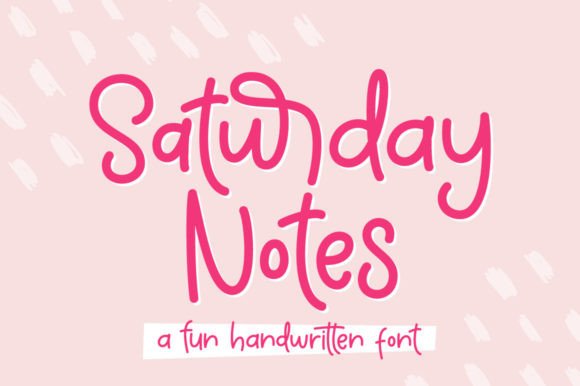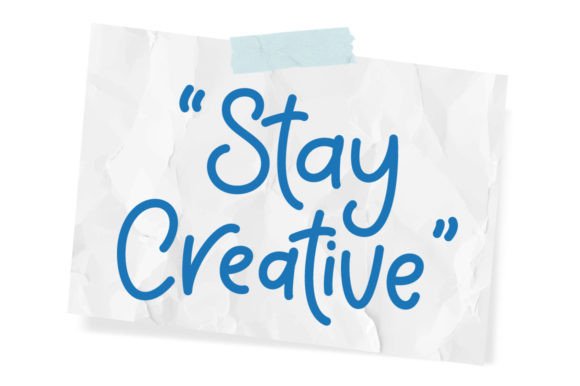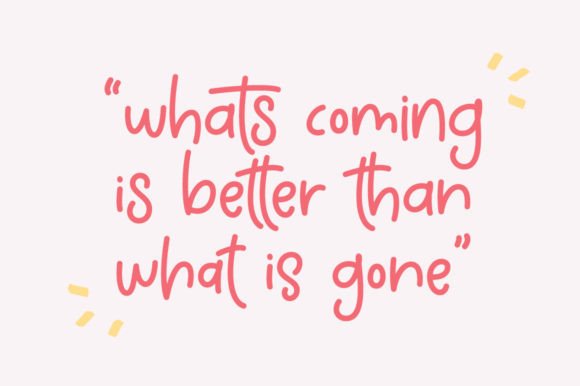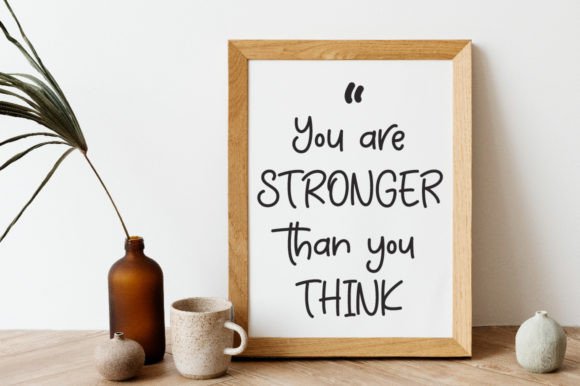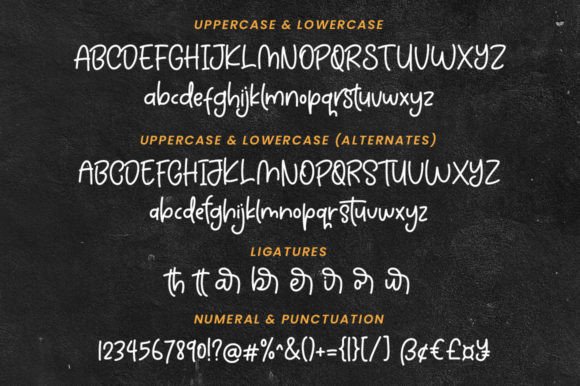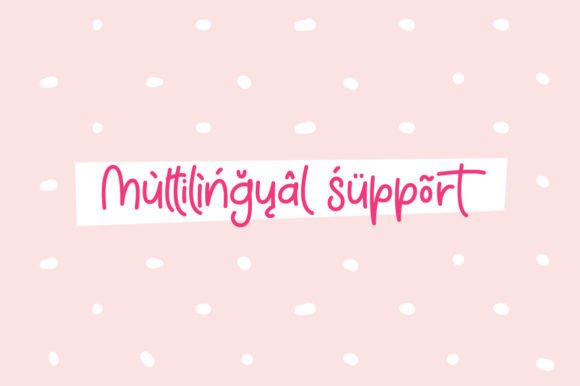
Saturday Notes Font
About Saturday Notes Font
Introducing Saturday Notes, a delightful and playful handwritten font designed to infuse fun and personality into a variety of creative projects. Whether you’re working on logos, wedding stationery, cards, gift designs, photography, watermarks, product packaging, quotes, or any other endeavor, Saturday Notes is the perfect choice to add a touch of charm.
What sets Saturday Notes apart is its playful and casual vibe, making it ideal for projects that seek a lighthearted and friendly tone. Imagine it gracing wedding stationery, where it brings a sense of joy and celebration. Picture it on cards or gift designs, adding a personalized touch that resonates with warmth. Envision it in product packaging, creating a memorable and approachable brand identity.
Saturday Notes goes beyond being just a font; it’s a creative tool that enhances your projects with its whimsical style. The PUA encoding ensures easy access to all the glyphs and swashes, allowing you to customize and embellish your text effortlessly. This feature provides creative freedom, enabling you to make your designs as unique as your imagination allows.
Picture Saturday Notes making an impact on your photography watermarks, adding a playful and signature touch to your images. Visualize it on quotes, turning simple words into visually appealing expressions. Its versatility allows it to adapt seamlessly to various design applications, bringing a sense of fun to your creative endeavors.
In conclusion, Saturday Notes is more than just a font; it’s a playful companion ready to bring a touch of joy to your creative projects. Download it today and witness how it transforms logos, wedding stationery, quotes, and more into expressions of cheerful charm. Make Saturday Notes an essential part of your font collection, and let it be the key to unlocking a world of playful creativity in your designs!